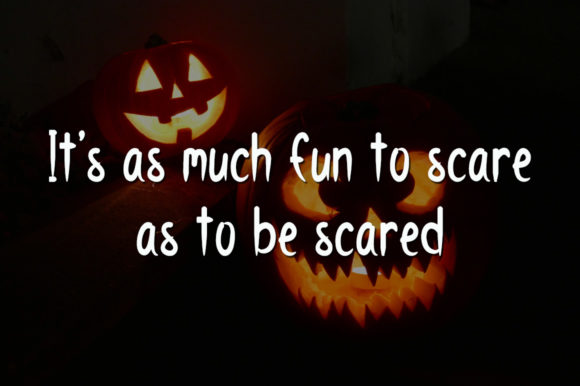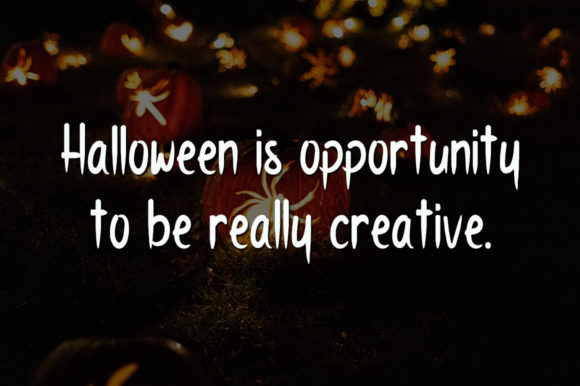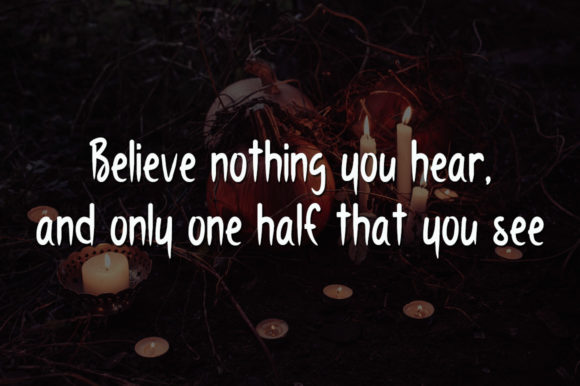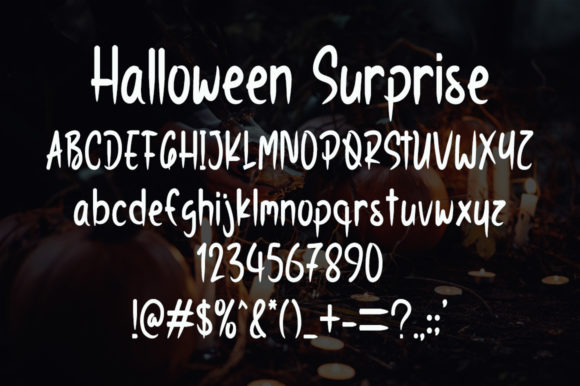
Halloween Surprise Font
About Halloween Surprise Font
Halloween Surprise is a fun and spooky handwritten font. Its unique and interesting style makes it ideal for each of your October themed designs!